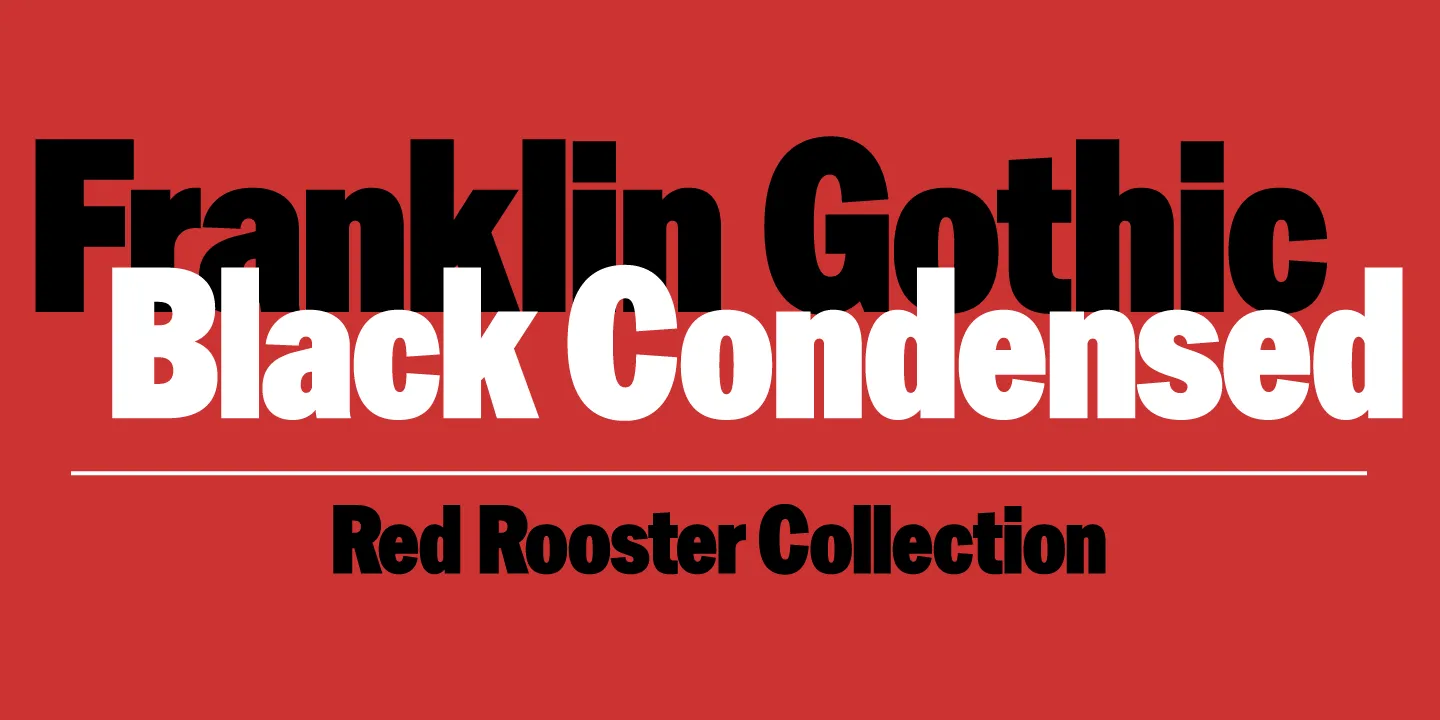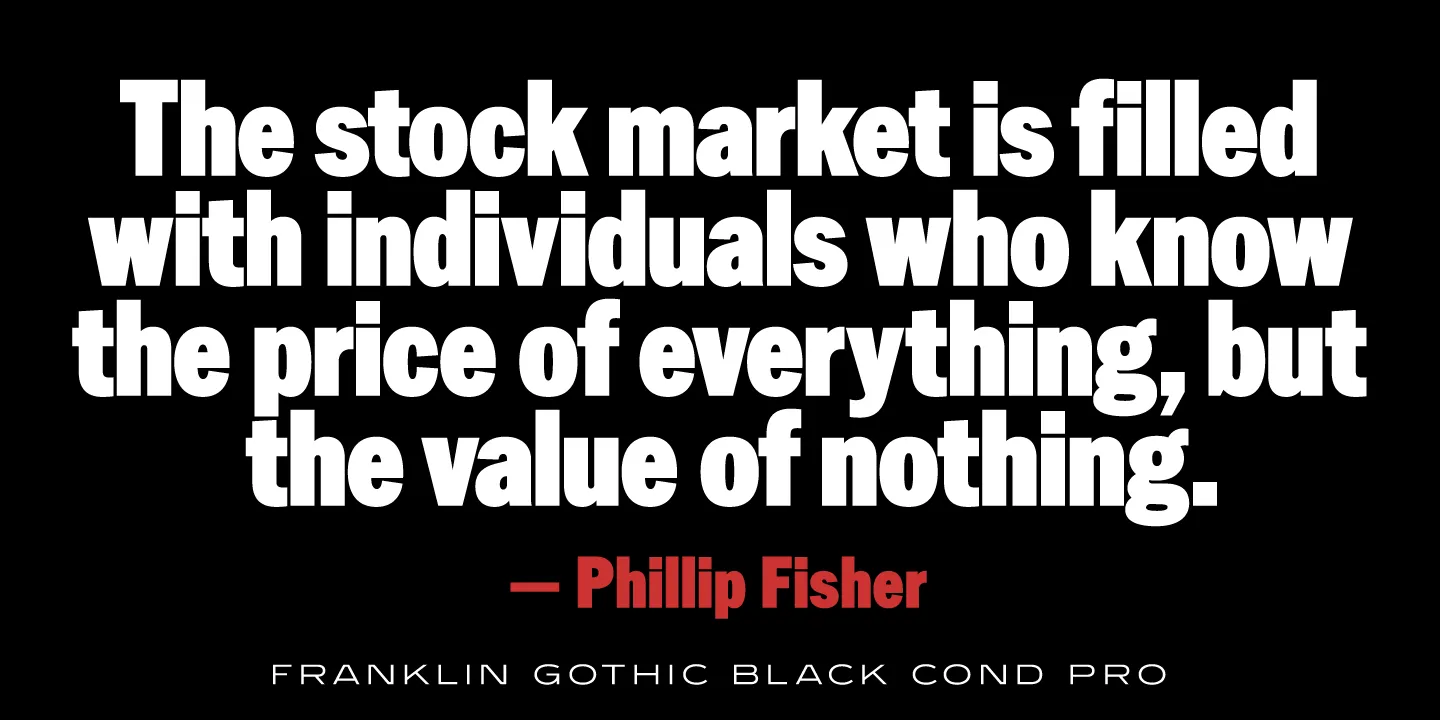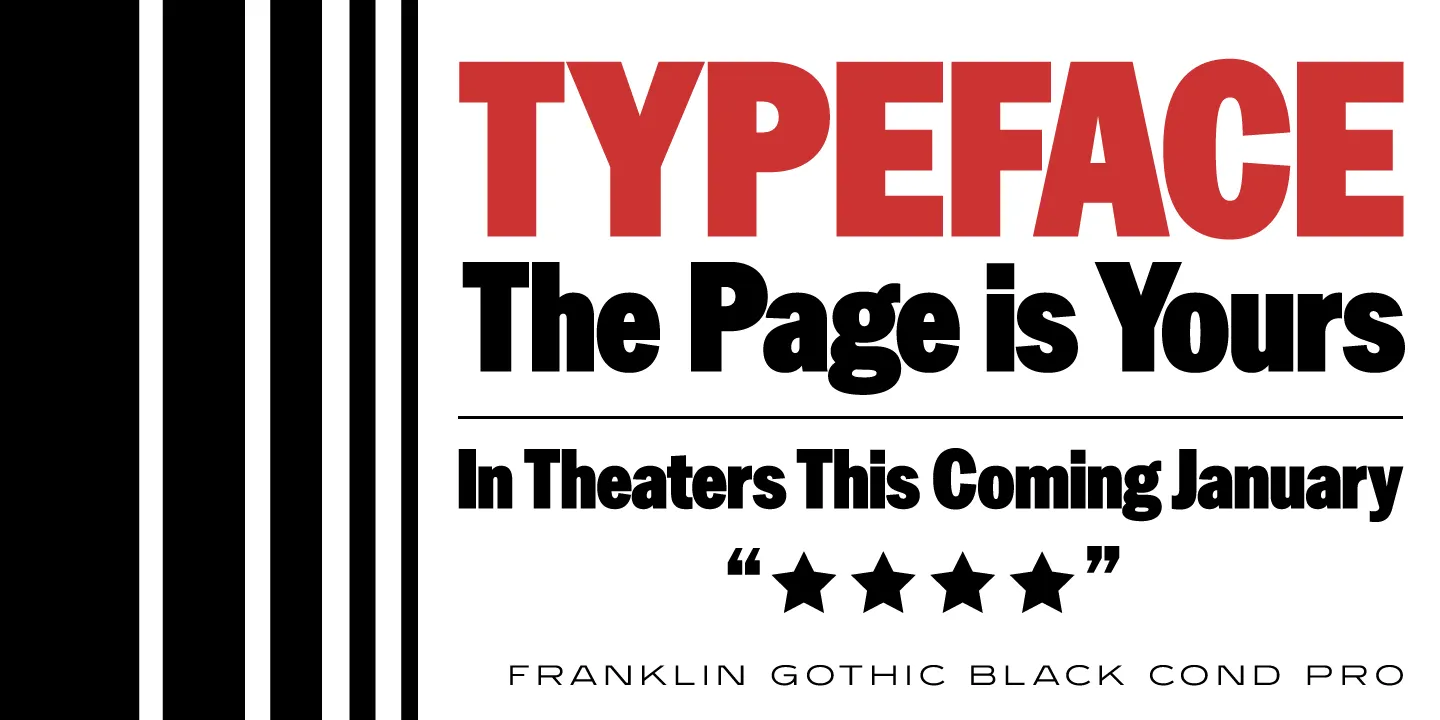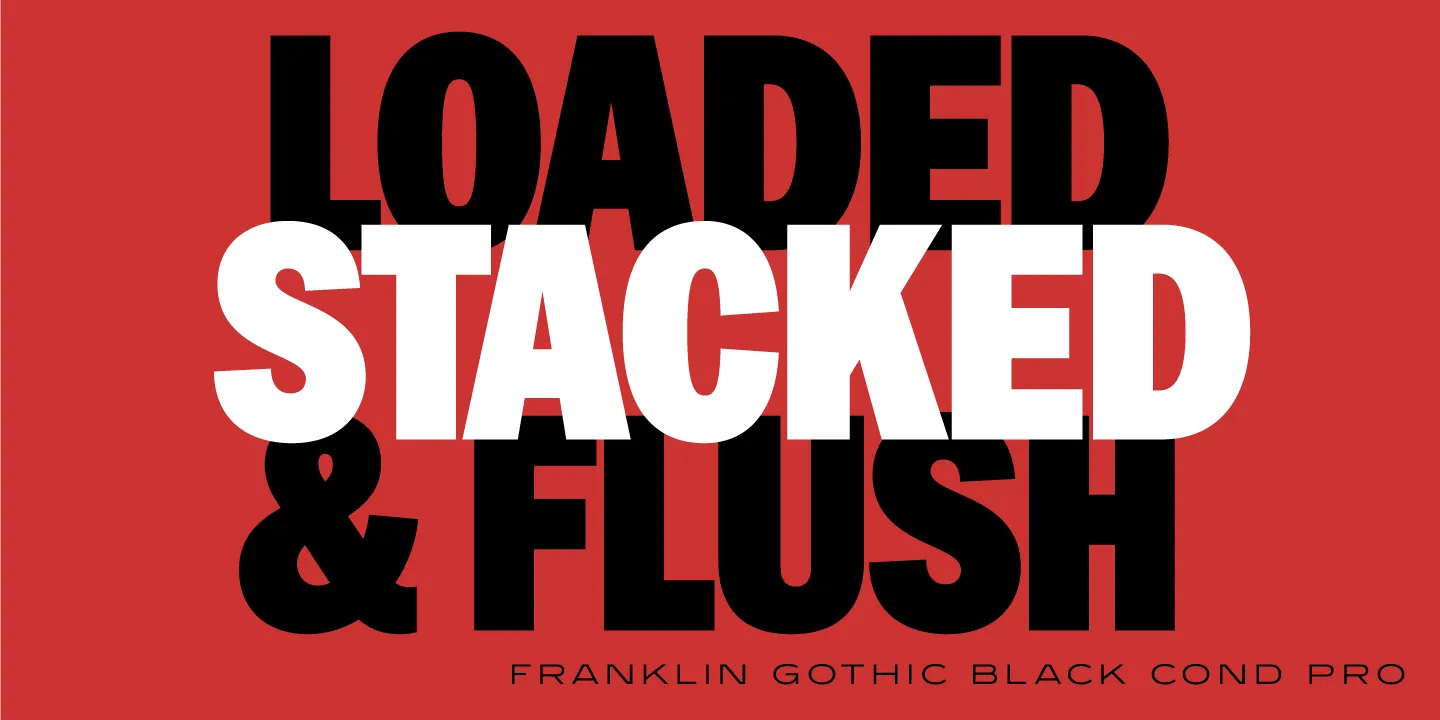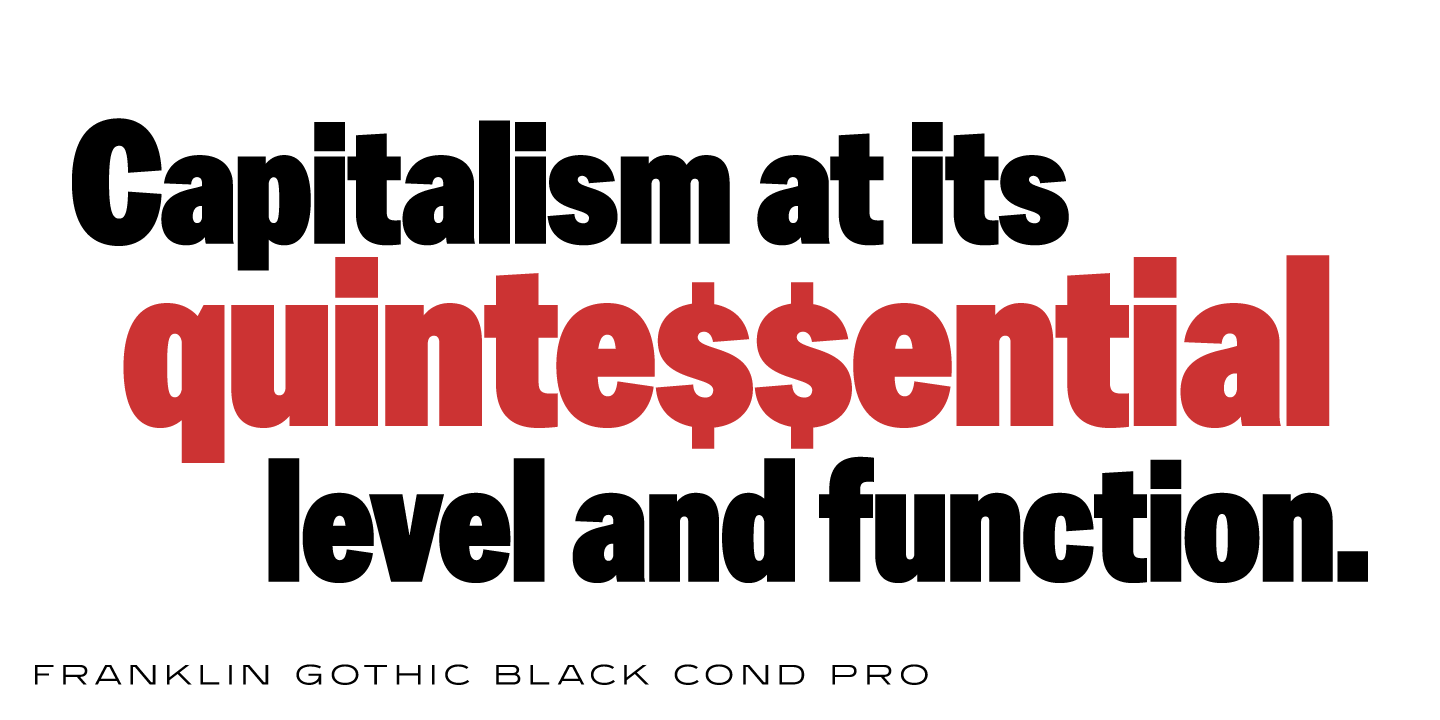
Franklin Gothic Font
Franklin Gothic Black Condensed is a sans serif typeface. It was designed and produced by Steve Jackaman (ITF) and Ashley Muir in 2011. The original Franklin Gothic was designed in 1903 by Morris F. Benton, and the typeface is named after Benjamin Franklin, America’s greatest printer. Franklin Gothic Black Condensed is the heaviest version of Franklin Gothic currently available, and has a sturdy, robust feel. It is ideal at display and subhead sizes, and makes any project visually powerful.